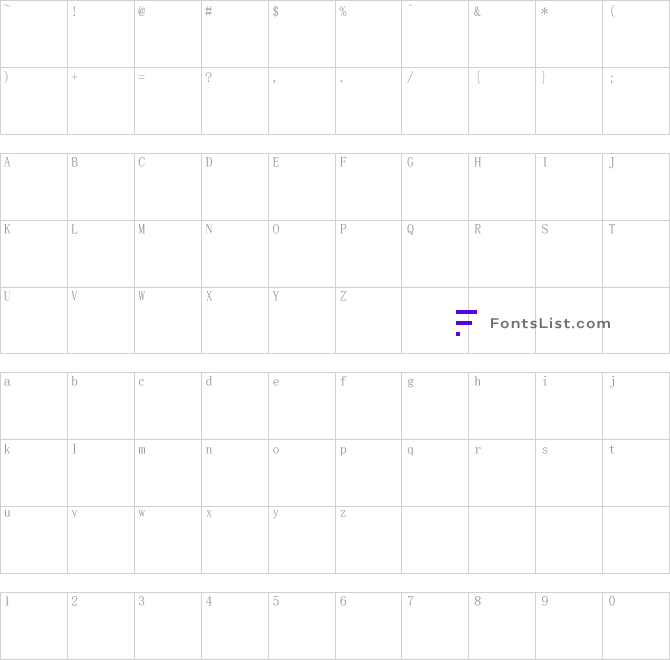
- Font Name:Australia Fair
Australia-Fair.ttf is a very beautiful artistic font, Australia-Fair.ttf is widely used in the design and printing of various books and pictures,Australia-Fair.ttf has a strong visual impact,Australia-Fair.ttf is a commonly used font in newspapers, magazines and books, and is used in posters, e-commerce Poster design, store design, logo design, font design and other fields.Australia-Fair.